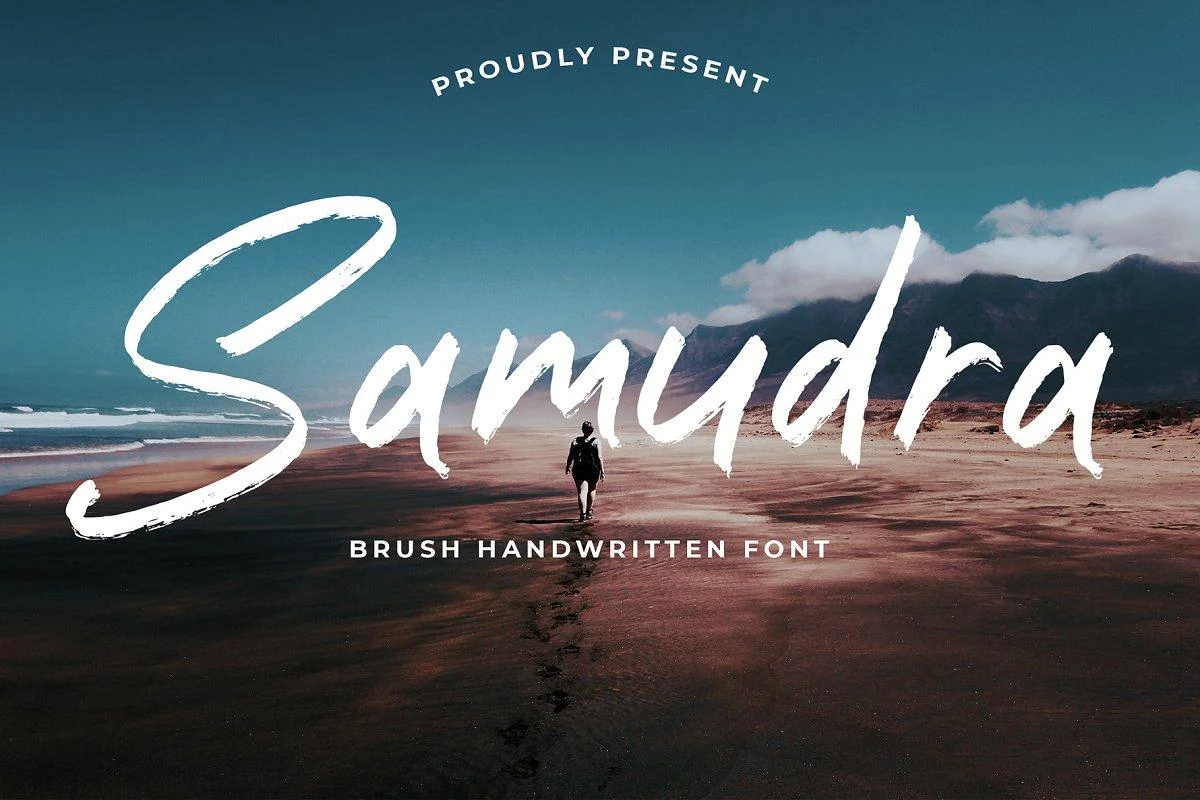
Samudra Brush Handwritten font
Samudra Brush Handwritten Font is perfect for artistic logos, creative branding, handwritten quotes, social media graphics, book covers, greeting cards, art prints, packaging design, restaurant menus, craft projects, wedding stationery, and bohemian-style advertisements.
What makes Samudra Brush Handwritten Font exciting is its authentic brush stroke texture that captures the raw energy and spontaneity of hand-painted lettering. This dynamic typeface showcases natural brush variations, paint splatter effects, and organic imperfections that give every word a genuine handcrafted appearance. The font's expressive character and artistic flair make it perfect for projects that require authentic creativity and personal touch. Its bold brush strokes and confident letterforms create strong visual impact while maintaining the intimate feel of handwritten communication.
The Samudra Brush Handwritten Font family features uppercase and lowercase letters with natural variations, along with stylistic alternates, brush-style numerals, and artistic punctuation marks. The character set includes multiple versions of each letter to simulate natural handwriting flow and prevent repetitive patterns.
Whether you're designing artistic brand identities, creative publications, or expressive advertising campaigns, Samudra Brush Handwritten Font Free Download provides the authentic handcrafted aesthetic your projects need. This premium brush font performs exceptionally well in both digital and print applications, making it a valuable tool for designers seeking genuine artistic expression. The font's organic texture and natural variations create visual interest while maintaining excellent legibility at various sizes. Creative professionals and artists appreciate its ability to convey emotion and personality through typography. The comprehensive glyph collection supports multiple languages and includes special characters for international design projects. The font's artistic authenticity makes it ideal for brands wanting to communicate creativity, craftsmanship, and personal connection. When you incorporate this beautiful brush font into your designs, you're adding a layer of artistic authenticity that resonates with audiences and creates memorable visual experiences through expressive, handcrafted typography that stands out in today's digital landscape.